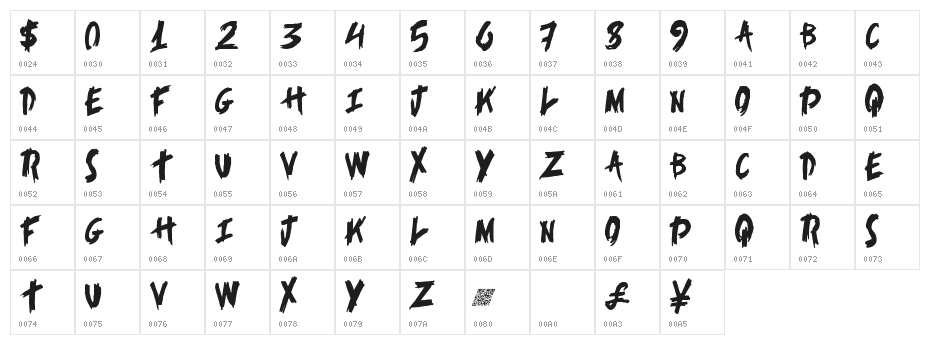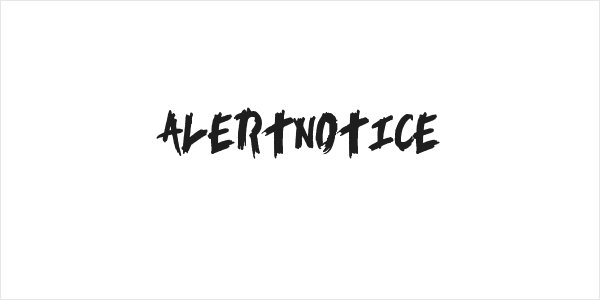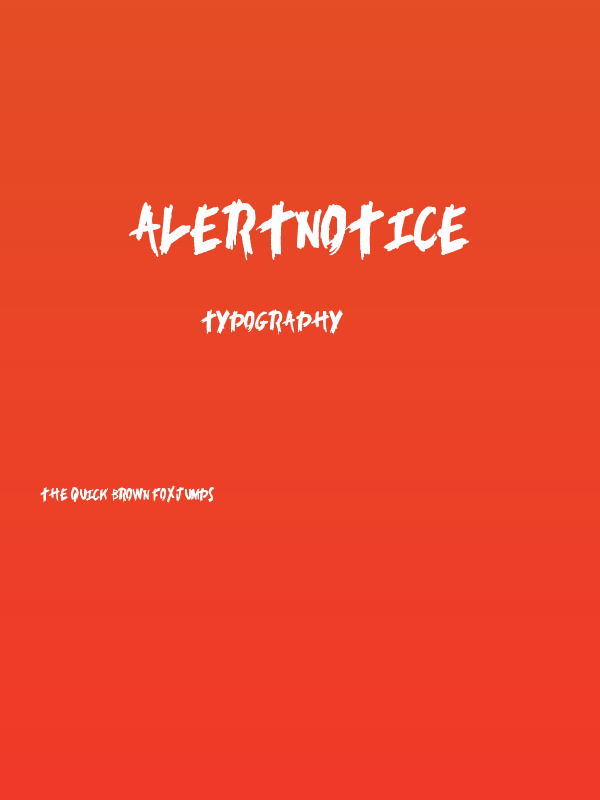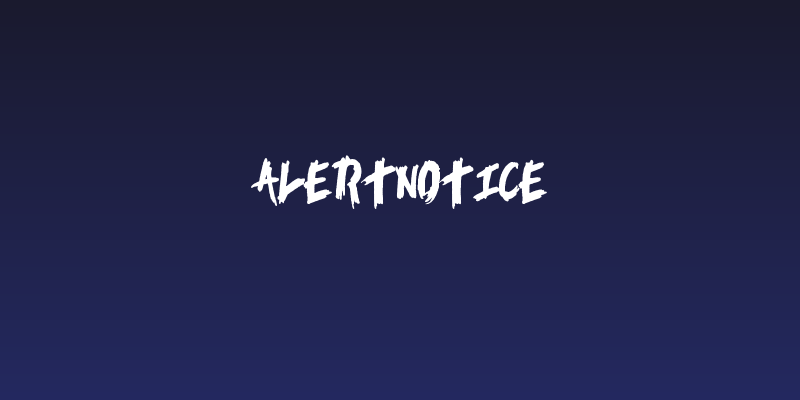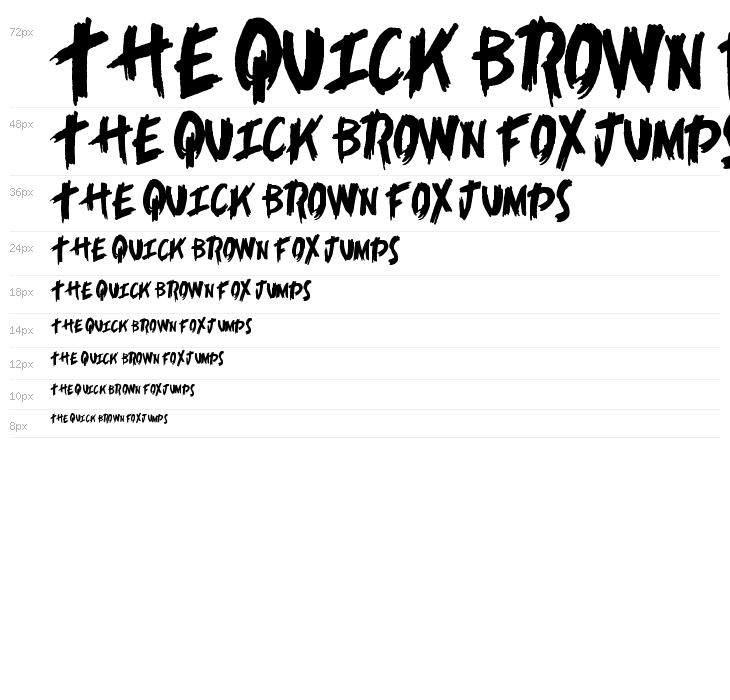
AlertNotice Font
AlertNotice Description
This font exhibits a bold and energetic style, characterized by its brush-like strokes and dynamic appearance. The letters are crafted with a sense of movement and spontaneity, giving them a hand-painted look. Each character is distinct, with varying stroke thicknesses that add to the overall expressive nature of the font. The uppercase and lowercase letters maintain a consistent style, while the numerals and special characters integrate seamlessly with the alphabet. This font's raw and edgy aesthetic makes it suitable for projects that require a strong visual impact.
Proposed ProjectsIdeal for posters, album covers, streetwear branding, and any design needing a bold, artistic touch.